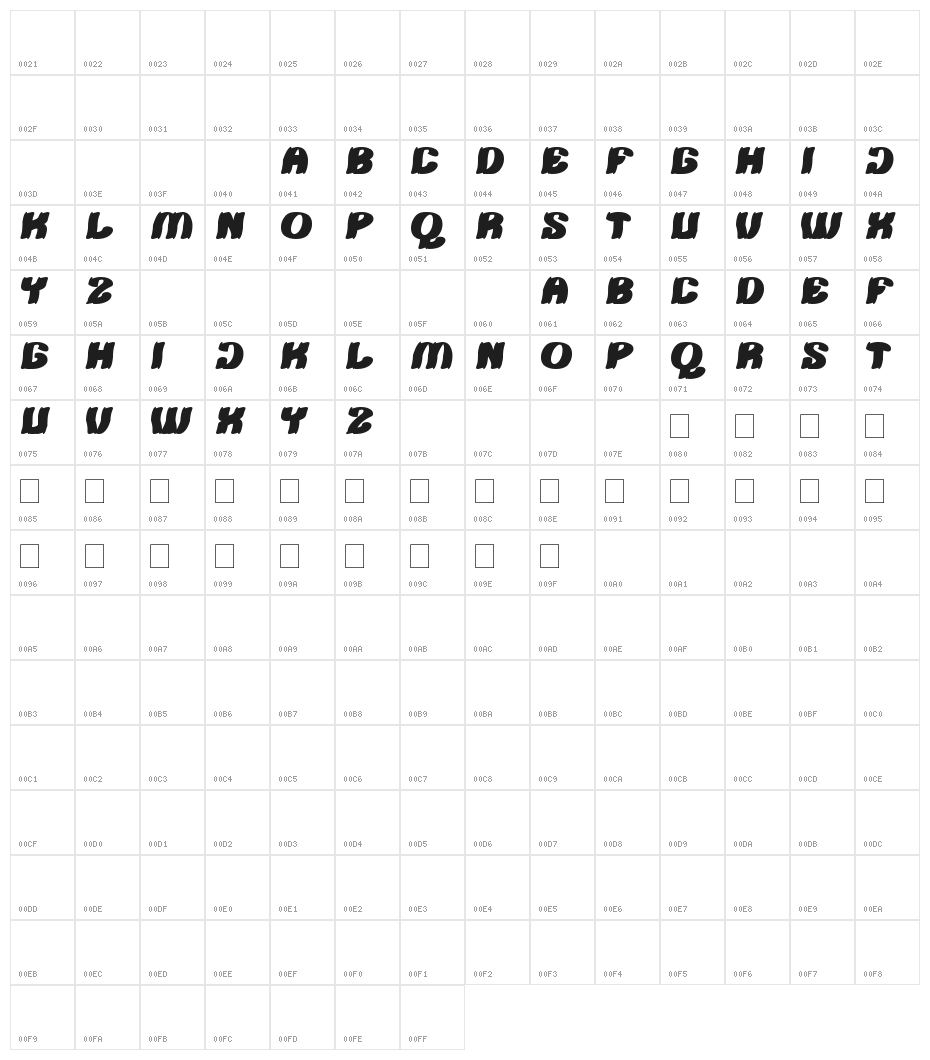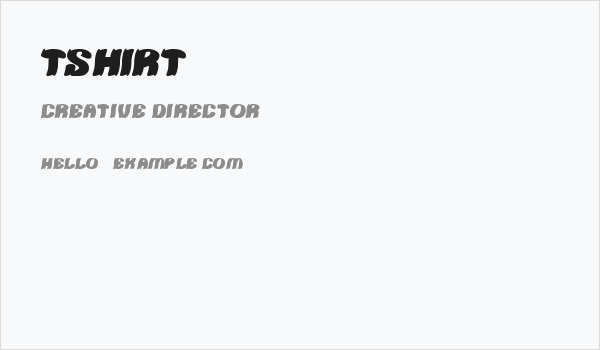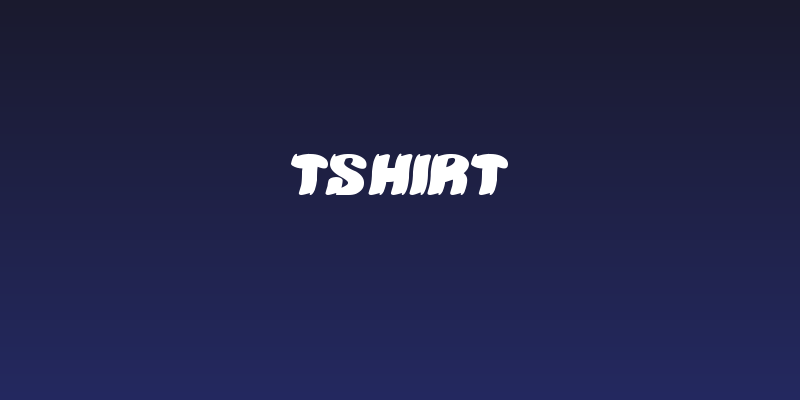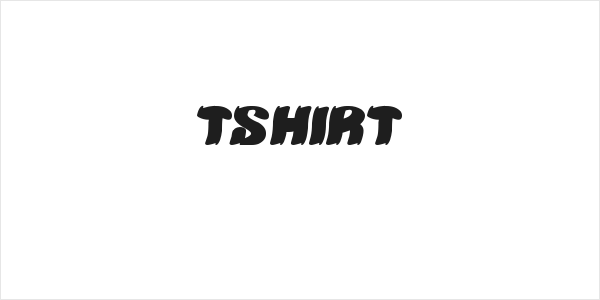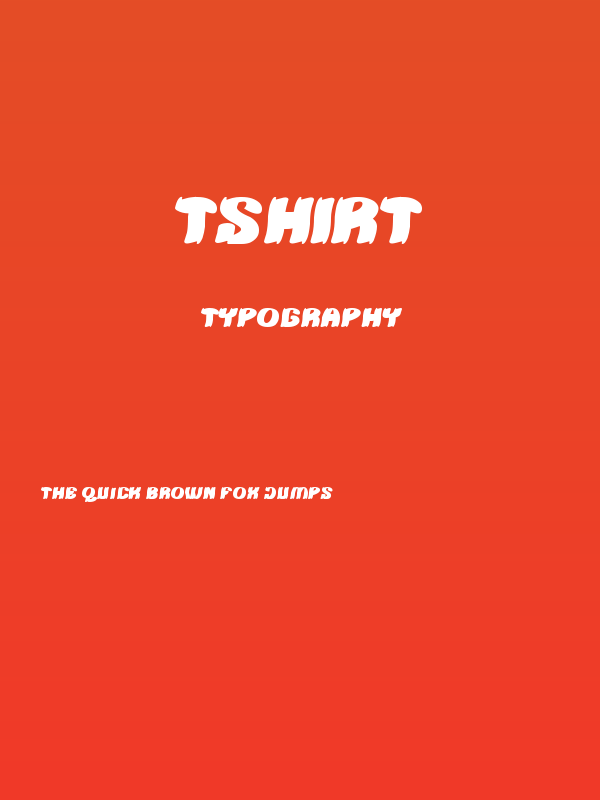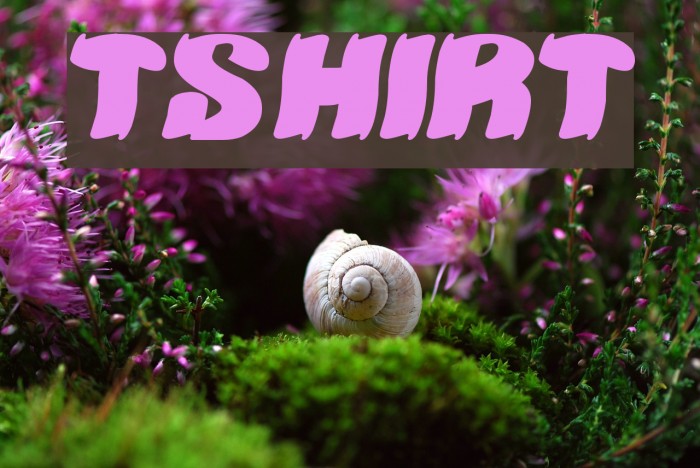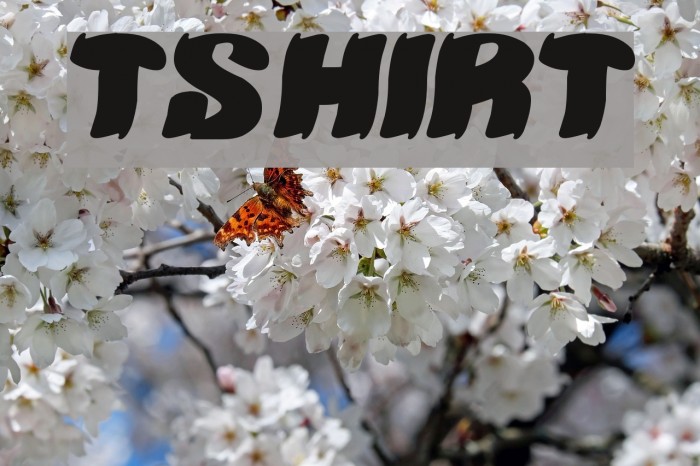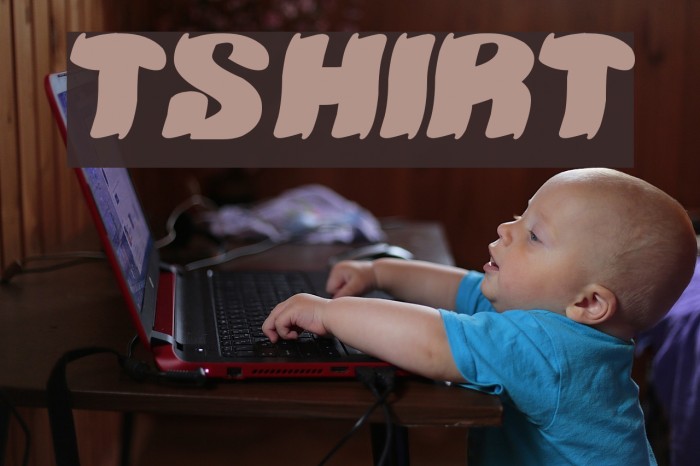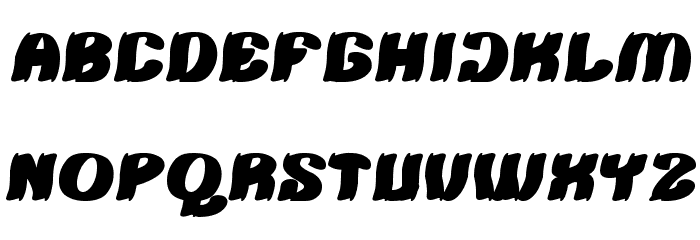
TSHIRT Font
TSHIRT Description
This font features a bold and dynamic style with thick, rounded strokes that give it a strong presence. The characters are designed with a playful and slightly retro aesthetic, reminiscent of vintage signage or classic sports team logos. The uppercase letters are particularly striking, with unique curves and angles that add to the font's distinctive look. The overall design is cohesive, with consistent stroke widths and a balanced weight that makes it suitable for eye-catching headlines or branding materials. The font's boldness ensures it stands out, while its rounded edges soften the overall appearance, making it approachable and friendly.
| Overall Style | Vintage |
| Proposed Projects | Ideal for vintage-themed posters, sports team branding, retro merchandise, and bold headlines. |